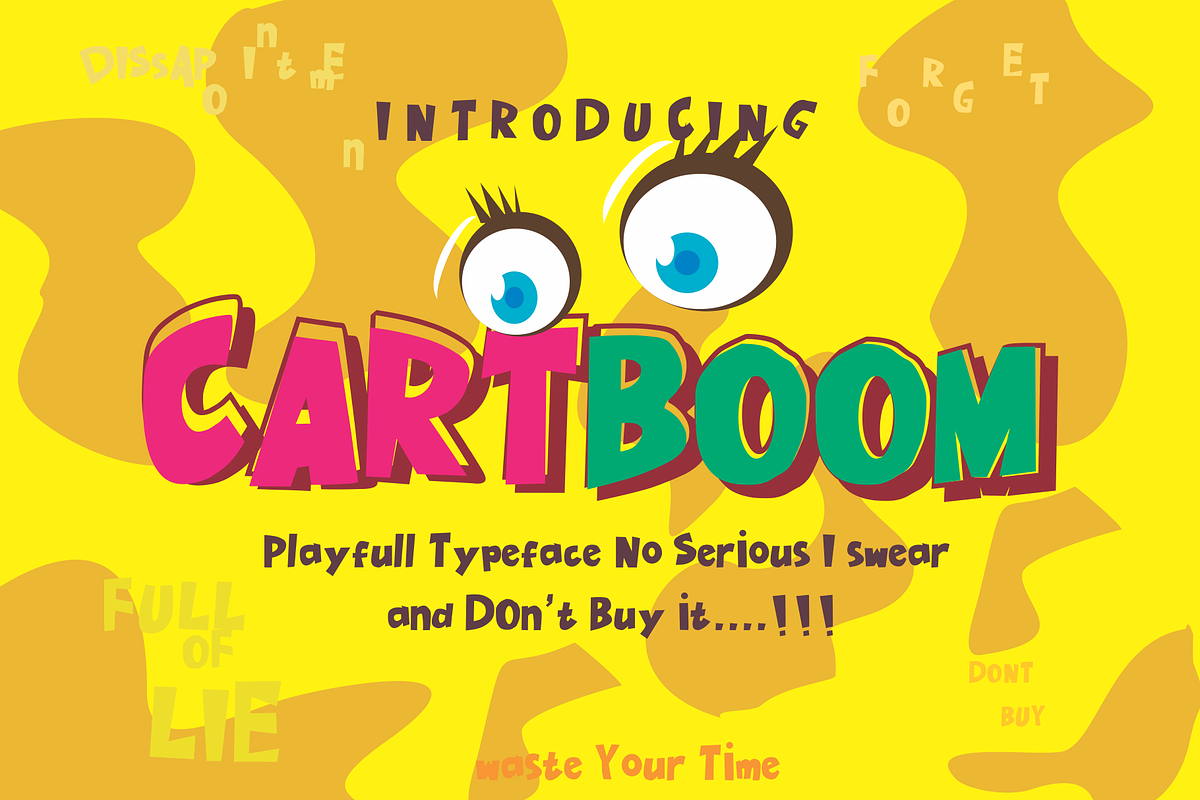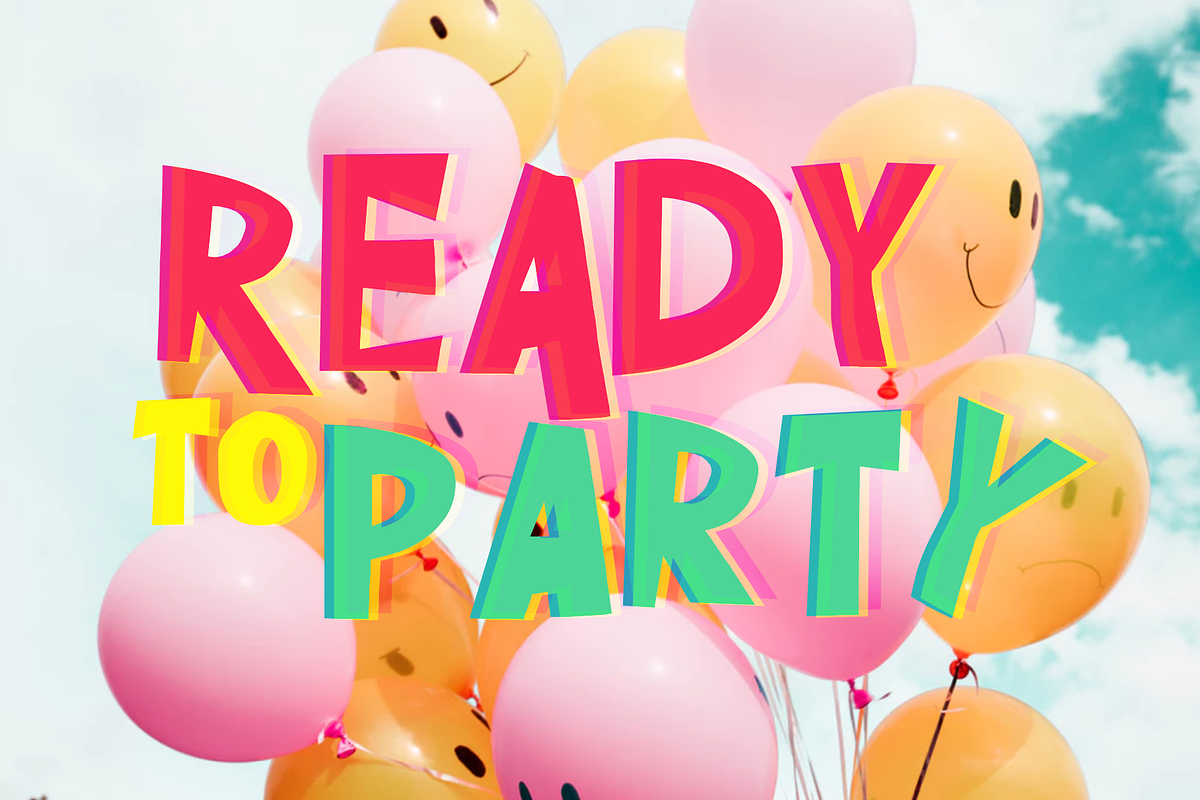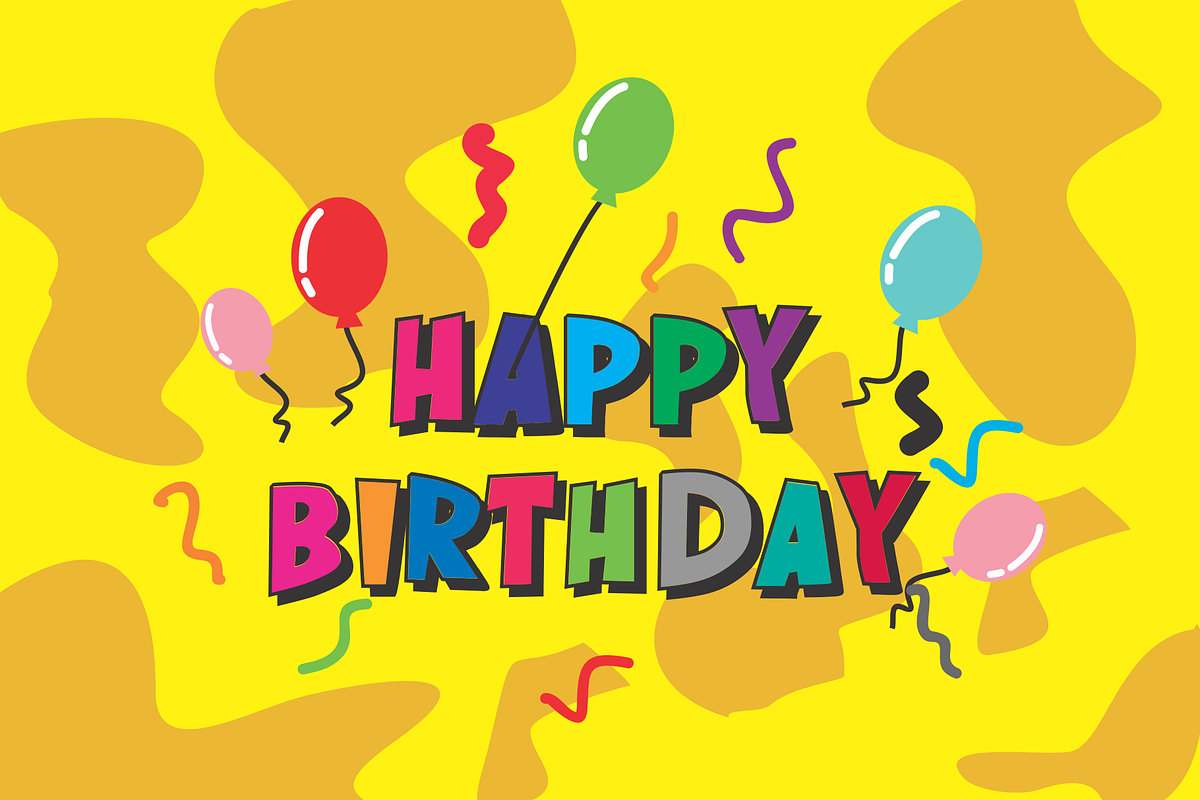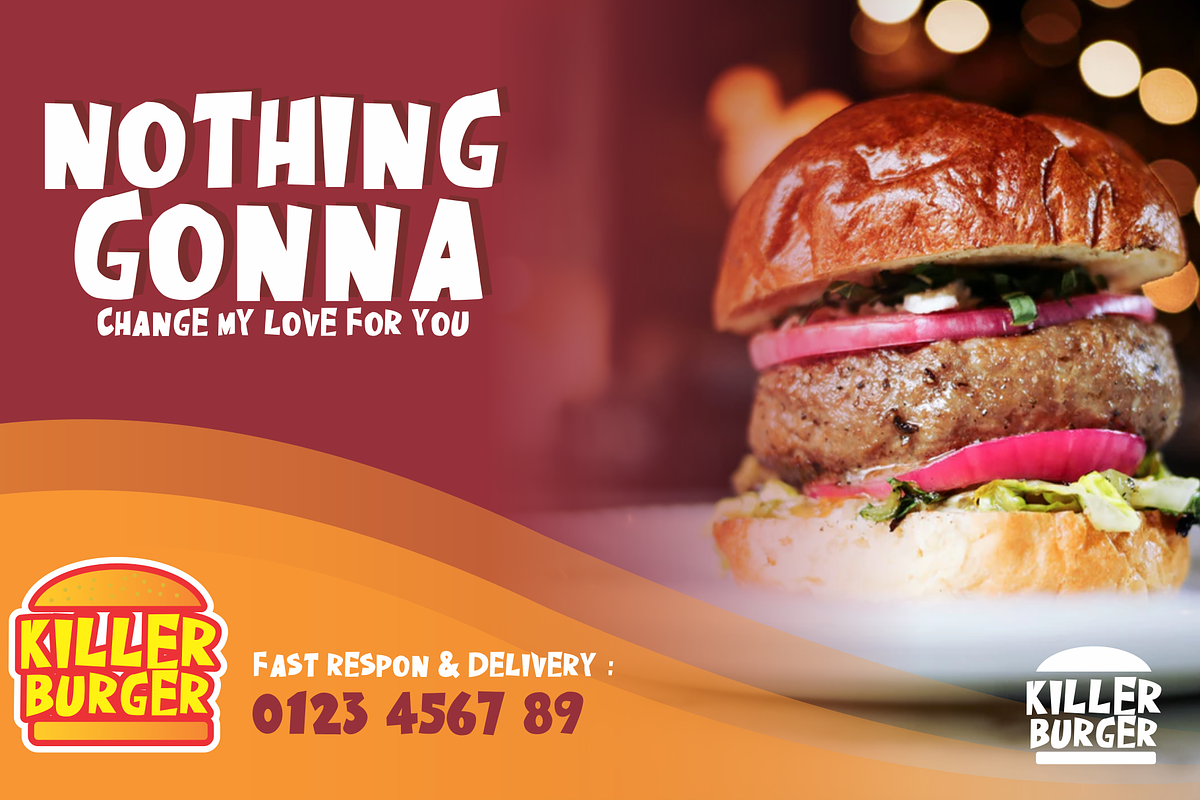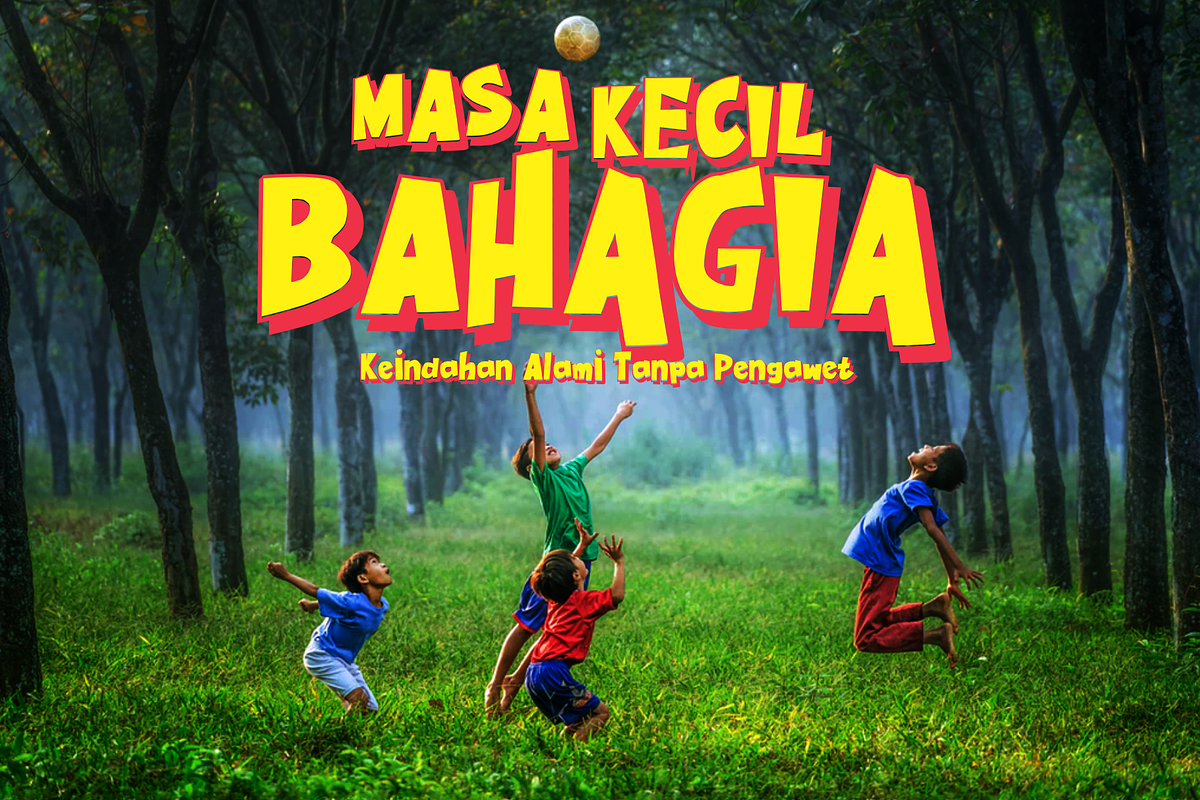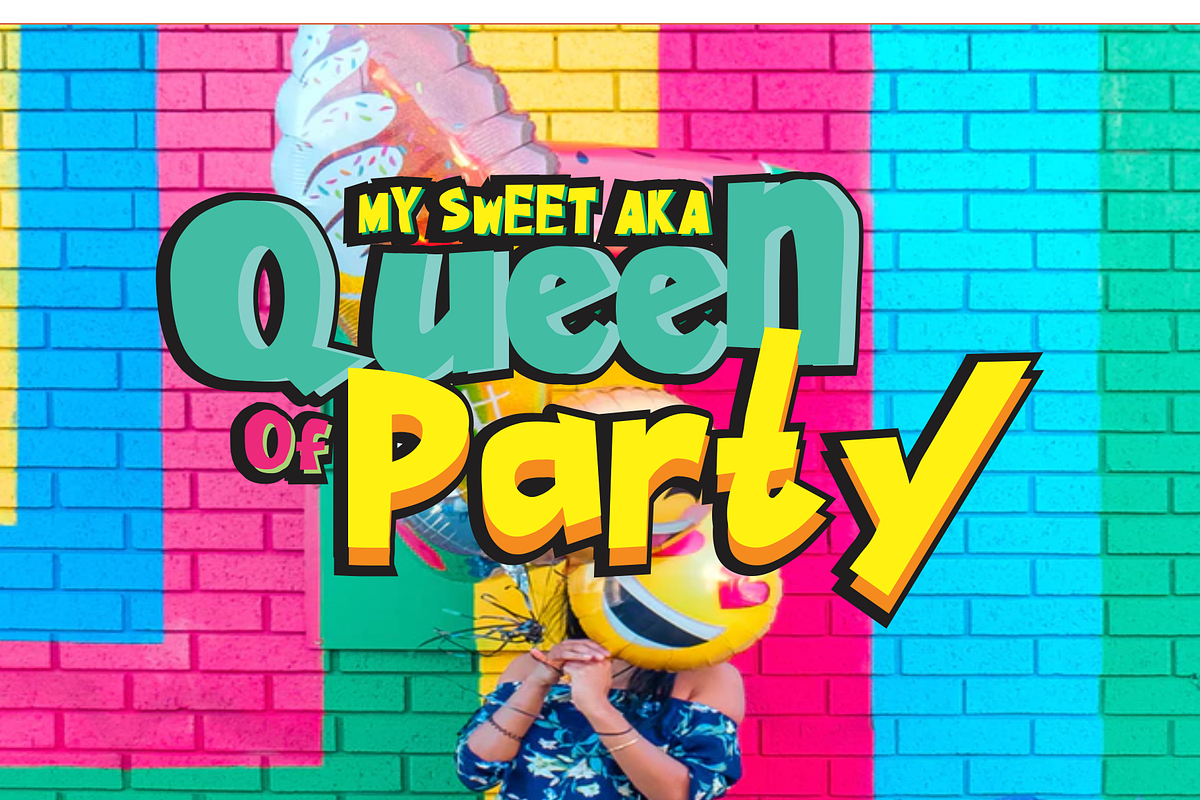
CARTBOOM cartoon playfull font
Cartboom Fonts are inspired by cartoon fonts and fonts with themes around the world of children, or more playful font fonts are layered fonts, so we make variations for designs with this font. Can be used for products that are playful. for the:
-logo -snack products -t shirt design and so on.
CARTBOOM cartoon playfull font by SHEILLA fits naturally into Branding, posters, packaging, typography.